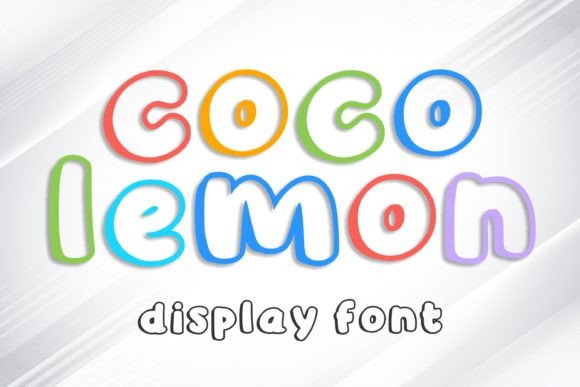
Coco Lemon Font: A Cute and Playful Display Font for Your Creative Projects
The world of typography is vast and diverse, with numerous fonts available for various design needs. Among these, the Coco Lemon font stands out for its unique blend of cuteness and playfulness. This display font is perfect for projects that require a lovely touch, making it an ideal choice for cartoon-related designs, children’s games, and other creative endeavors. In this article, we’ll explore the features and benefits of the Coco Lemon font, and why it’s an excellent addition to your typography collection.
What is Coco Lemon Font?
Coco Lemon is a modern display font designed to add a playful and whimsical touch to your designs. Its cute and bubbly appearance makes it perfect for projects aimed at a younger audience or those that require a lighthearted feel. The font’s unique design elements, such as rounded edges and soft curves, give it a distinctive look that’s both eye-catching and endearing.
Ideas for Using Coco Lemon Font
The versatility of the Coco Lemon font makes it suitable for a wide range of projects. Here are some ideas to get you started:
- Cartoon-related designs: Use Coco Lemon to create engaging and fun titles for cartoons, comics, or animated series.
- Children’s games: Add a playful touch to your game’s UI, titles, or instructional materials with this delightful font.
- Kids’ party invitations: Create adorable and eye-catching invitations for kids’ parties, setting the tone for a fun-filled celebration.
- Educational materials: Use Coco Lemon to make learning more enjoyable and engaging for young students.
- Branding and packaging: Add a touch of whimsy to your brand’s identity or packaging with this charming font.
Benefits of Using Coco Lemon Font
So, why choose Coco Lemon for your projects? Here are some benefits that make it an excellent choice:
- Unique and eye-catching: Coco Lemon’s distinctive design ensures your project stands out from the crowd.
- Playful and engaging: The font’s playful nature makes it perfect for projects aimed at a younger audience or those requiring a lighthearted feel.
- Easy to read: Despite its playful design, Coco Lemon remains easy to read, making it suitable for body text and headings.
- Versatile: Use Coco Lemon across various design projects, from digital to print materials.
Tips for Using Coco Lemon Font Effectively
To get the most out of Coco Lemon, consider the following tips:
- Pair with complementary fonts: Combine Coco Lemon with other fonts that complement its playful nature, such as sans-serif fonts for body text.
- Experiment with colors: Play around with different color schemes to enhance the font’s playful and whimsical feel.
- Use varying font sizes: Create visual hierarchy by using different font sizes for headings and body text.
- Add creative effects: Experiment with subtle effects, such as drop shadows or outlines, to add depth to your text.
| Font Name | Coco Lemon Font |
| Author | riki.studio |
In conclusion, the Coco Lemon font is a versatile and charming display font perfect for adding a playful touch to your designs. Its unique features, versatility, and ease of use make it an excellent choice for various projects, from cartoon-related designs to children’s games and educational materials. By incorporating Coco Lemon into your typography collection, you’ll be able to create engaging, fun, and eye-catching designs that capture your audience’s attention.